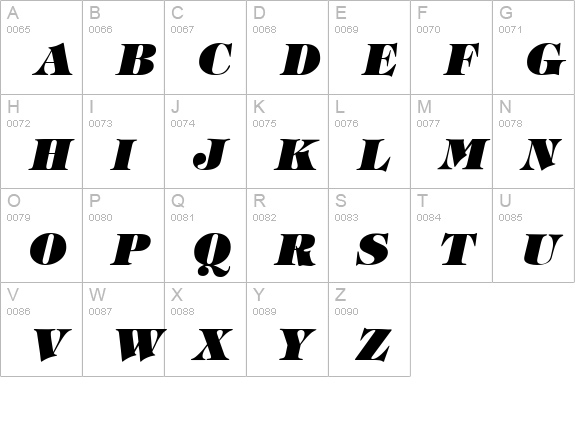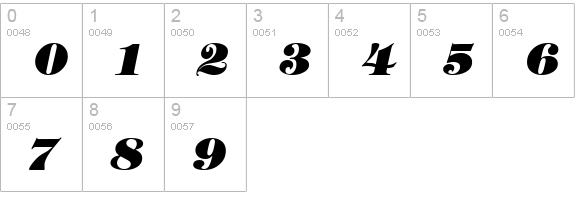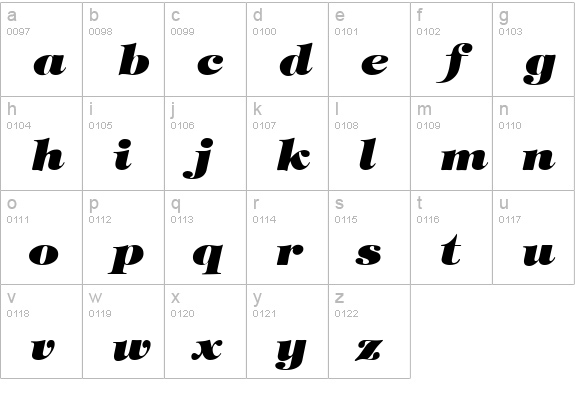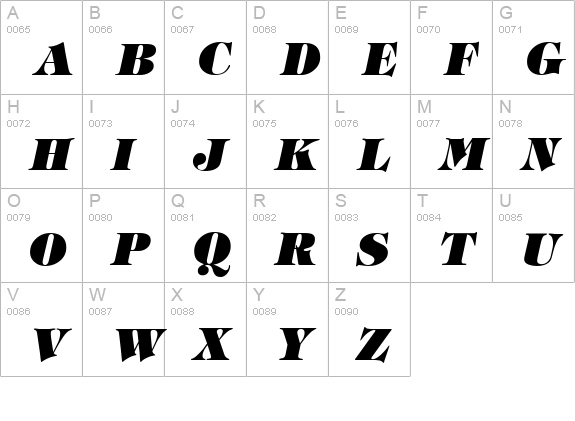
Tiffany Italic is a distinctive, italic variant in the Tiffany typeface family \xE2\x80\x94 well suited to design and typography projects.
Introducing Tiffany Italic, a truly mesmerizing font that effortlessly blends elegance and sophistication. With its graceful curves and delicate strokes, this font exudes a sense of refined charm that is sure to capture attention wherever it is used. Designed with meticulous attention to detail, Tiffany Italic is a versatile typeface that lends itself perfectly to a wide range of projects. Whether you're creating invitations for a high-end event, designing a logo for a luxury brand, or crafting a stylish editorial layout, this font will elevate your designs to new heights of beauty. One of the most remarkable aspects of Tiffany Italic is that it is free. Yes, you read that right - this exceptional font is freely available to download at FontsMarket.com. Now you can enhance your designs with a touch of sophistication without having to spend a penny. Download Tiffany Italic today and experience the unparalleled beauty and versatility of this exquisite font. Let your creativity soar as you explore the endless possibilities it offers. Whether you're a professional designer or just starting out, Tiffany Italic is the perfect addition to your font collection. Don't miss out on this incredible opportunity to elevate your designs with elegance and style.